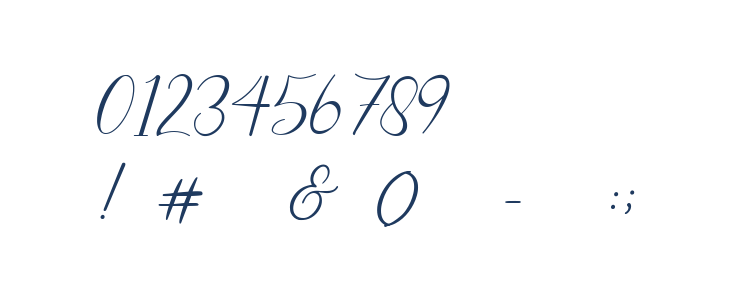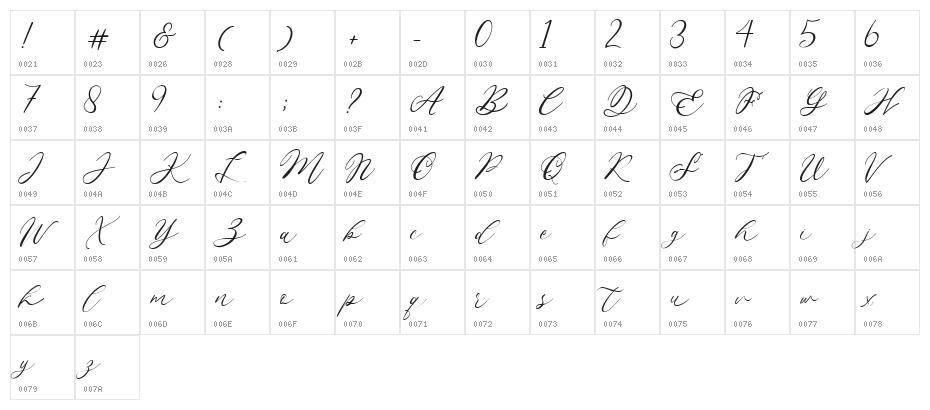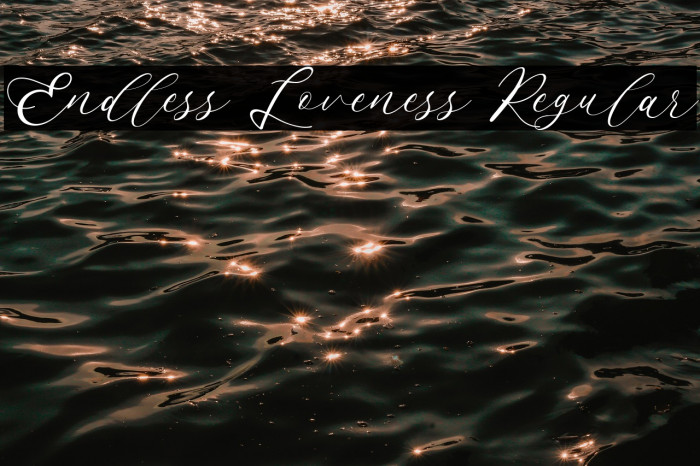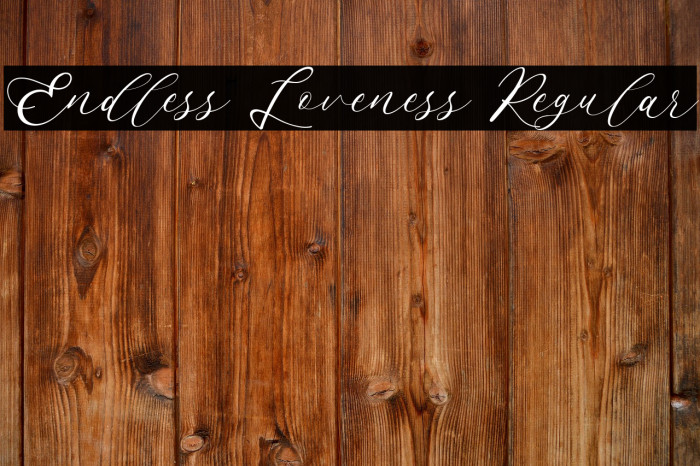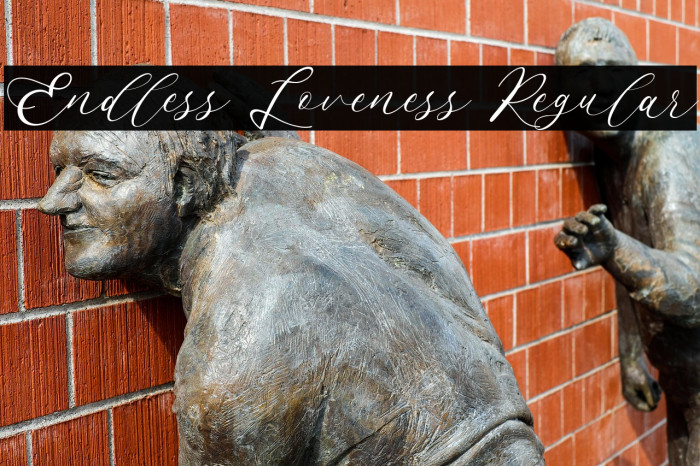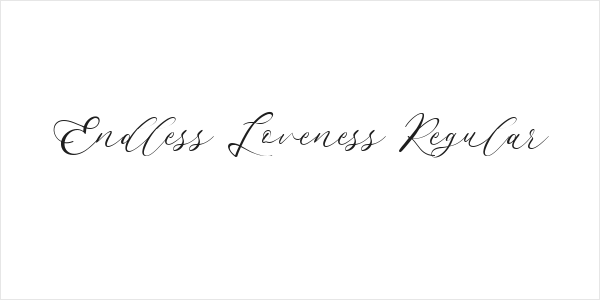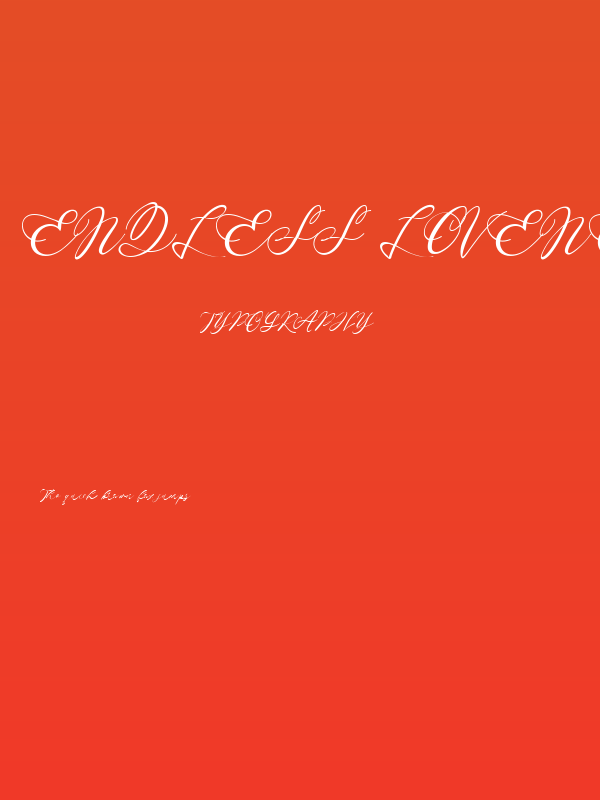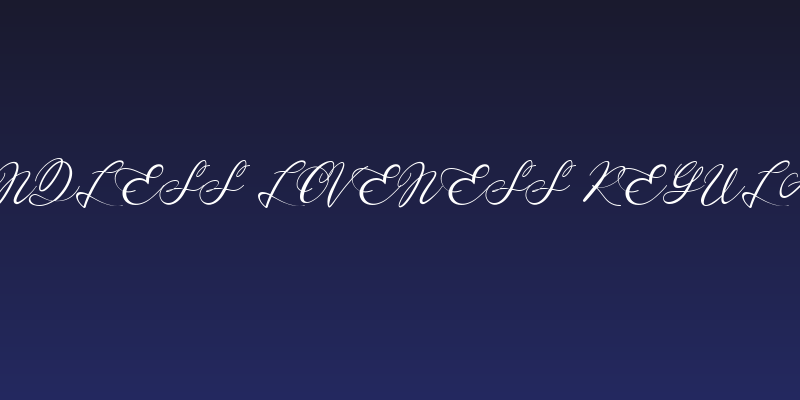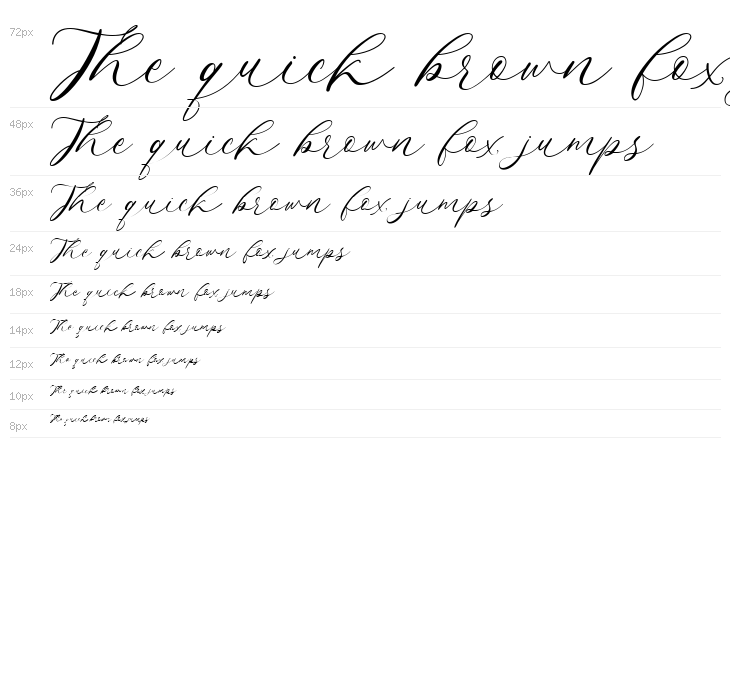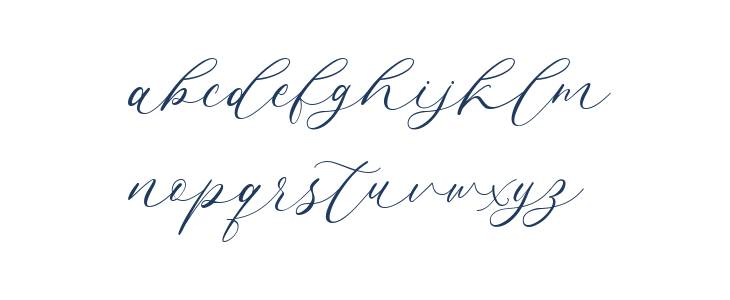
Endless Loveness Regular Font
Endless Loveness Regular Description
This elegant script font exudes a sense of romance and sophistication, characterized by its flowing, cursive style. The letters are intricately connected, with smooth, sweeping curves and delicate loops that create a harmonious and graceful appearance. The uppercase letters are particularly ornate, featuring flourishes and embellishments that add a touch of luxury. The lowercase letters maintain a consistent flow, enhancing readability while preserving the font's decorative nature. The numerals and special characters are designed to complement the overall aesthetic, making this font suitable for a variety of creative applications.